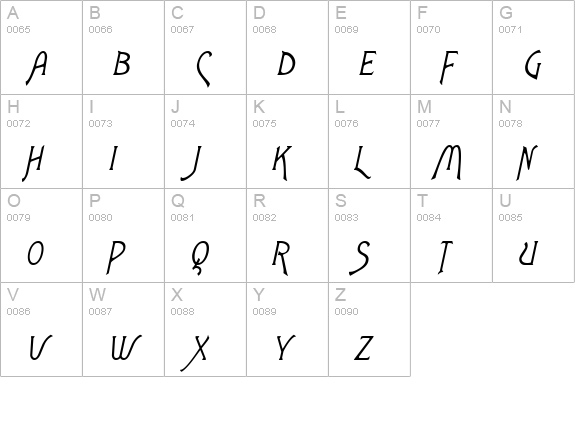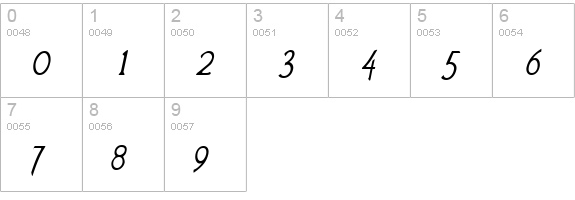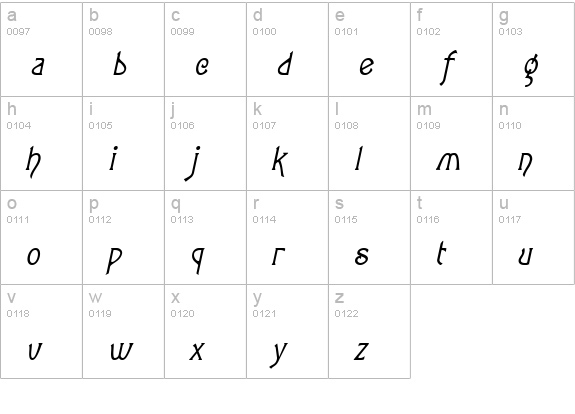
Agatha Italic Font Details
Agatha Italic is a distinctive, italic variant in the Agatha typeface family \xE2\x80\x94 well suited to design and typography projects.
Agatha Italic font is a stunning and elegant typeface that effortlessly exudes sophistication and charm. With its graceful curves and stylish slant, this font is perfect for adding a touch of class to any design project. Whether you're working on invitations, branding materials, or editorial layouts, Agatha Italic will elevate your work to a whole new level. The best part? Agatha Italic is available for free download at FontsMarket.com. This means you can access this exquisite font without any cost, making it a must-have addition to your font collection. Don't miss out on the opportunity to enhance your designs with the timeless beauty of Agatha Italic. Download it today and let your creativity soar!